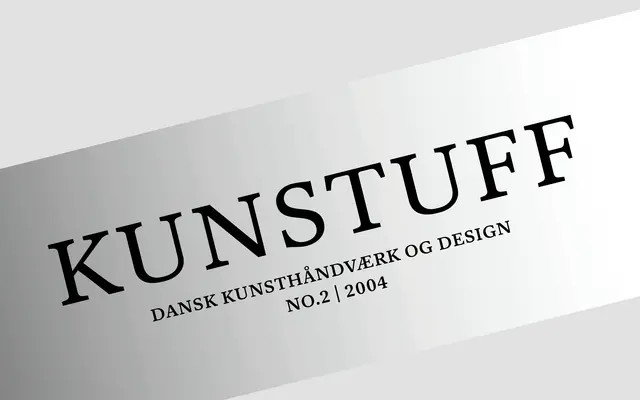
Kunstuff
A2-Type · 2004
Kunstuff specimen from A2-Type
A sturdy serif originally drawn in 2004 for the redesign of Kunstuff, a Danish art and crafts magazine, with open counters and pronounced serifs throughout.
Designed in 2004 as a bespoke typeface for a Danish art and crafts magazine, the family covers six weights from Light to Black, each with a matching italic. Generously proportioned counters and pronounced serifs are its defining structural features, making it well suited to print editorial work. The range of weights gives it flexibility across text sizes and display settings.
A sturdy serif with pronounced serifs and generous counters, designed for editorial use in a magazine context. The combination of sturdy construction and open counters places it in a contemporary text serif category.